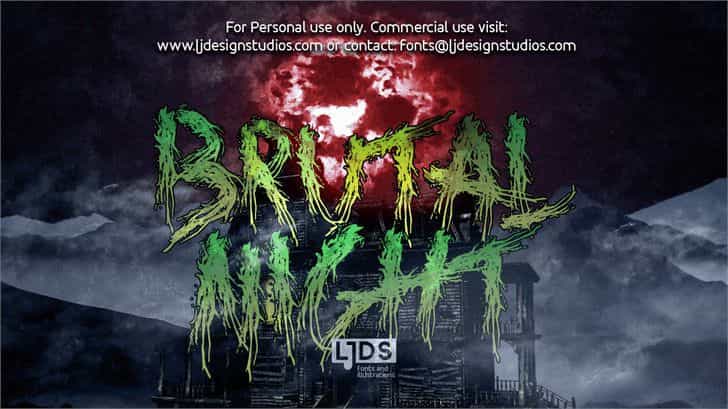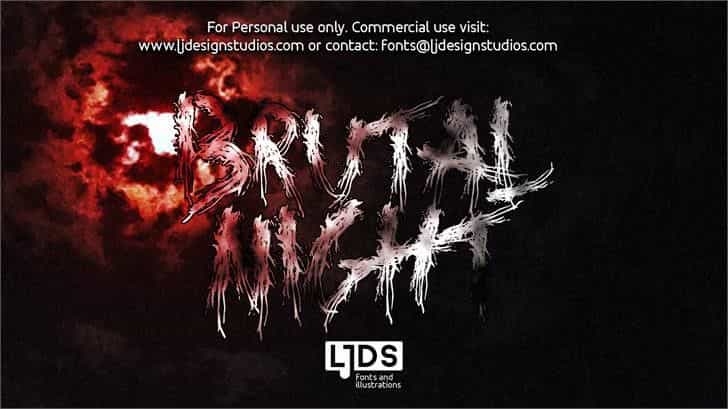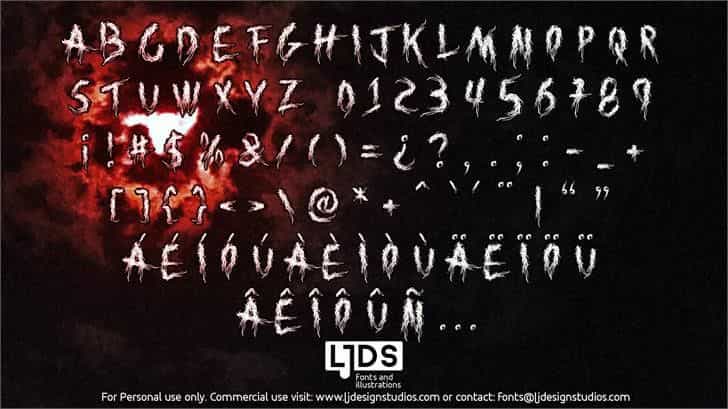
Call it “the evolution of Dreams of Death” but you should know this: The thought of the wonderful Halloween we had is enough to make a version with a root brush which hints the letters somewhat horrifying and very ugly.